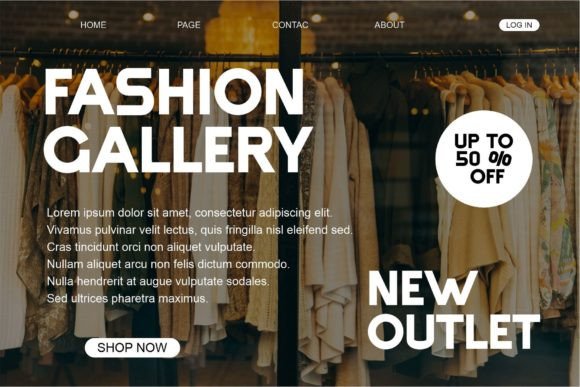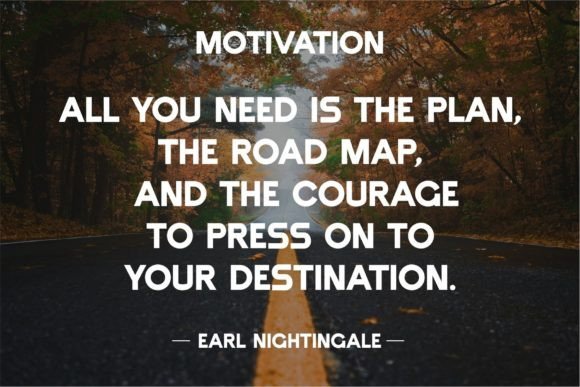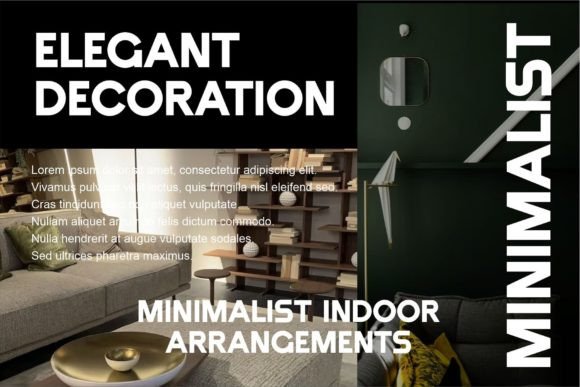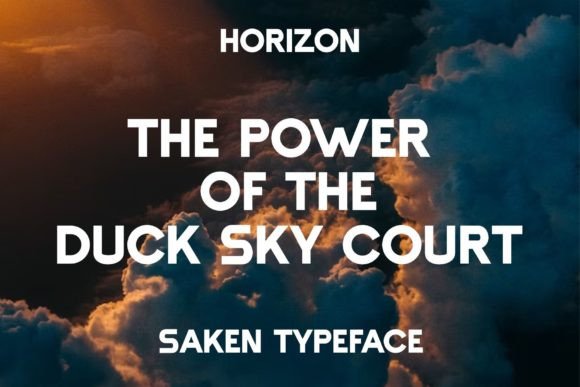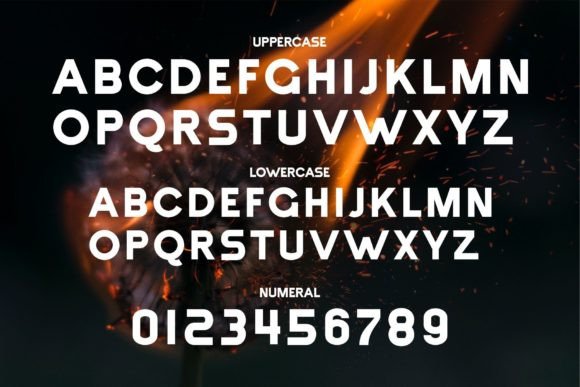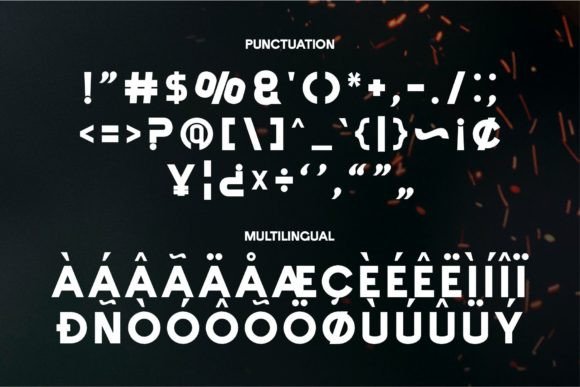
Introduction to Saken Font
You’ve just landed on the perfect shot for your creative project, and now you need to make it pop. The moment you hit the shutter, the excitement begins. But, what if the font you choose doesn’t do justice to your masterpiece? That’s where Saken Font comes in – a modern sans serif typeface designed to elevate your designs to the next level.
Whether you’re working on a high-quality brochure, crafting a beautiful invitation, or creating a stunning logo, Saken Font is the perfect design resource to bring your vision to life. With its clean lines and transparent background, this font is ideal for designers who want to create visually appealing and professional-looking designs. And the best part? It’s available for a free download, making it an accessible and valuable addition to any designer’s toolkit.
Saken Font
- High-quality typography with a transparent background, ideal for creative projects and design resources.
- Features a unique, modern design with a clean and minimalist aesthetic, perfect for a wide range of creative applications.
- Supports a wide range of languages, making it a versatile design resource for international projects.
- Includes a comprehensive character set with a variety of glyphs and ligatures, ideal for creative and design-intensive projects.
Honest Review: Saken Font
As a designer, I’m always on the lookout for high-quality design resources to elevate my creative projects. Recently, I had the chance to try out the Saken Font, and I must say it’s been a great addition to my design arsenal.
Here are some things that work well with the Saken Font:
- ✨ Unique and stylish design aesthetic that adds a touch of sophistication to any project.
- ✨ Highly versatile, suitable for a wide range of creative projects, from logos to editorial content.
- ✨ Transparent background, making it easy to use in conjunction with other design elements.
- ⚠️ Limited font sizes, which can make it a bit tricky to use in certain design scenarios.
- ⚠️ Not as extensive a character set as some other fonts, which can be a drawback for designers who need to work with specific languages.
Overall, I’m quite impressed with the Saken Font. Its unique design aesthetic and high-quality feel make it a great addition to any designer’s toolkit. While it may have a few limitations, I think it’s definitely worth checking out – especially considering the free download option!
Tips for Getting the Most Out of Saken Font
Experiment with different font sizes, colors, and styles to achieve the desired effect. Use Saken Font in combination with other design elements to create visually appealing and high-quality designs. The transparent background of the font adds an extra layer of creativity to your design project.
Saken Font is suitable for a wide range of creative projects, including brochures, flyers, business cards, and social media graphics. Its high-quality design and transparent background make it an ideal choice for designers looking for a free download resource that can elevate their work.
Q: Does the Saken Font have a transparent background?
Yes, the Saken Font features a transparent background, making it perfect for designs that require a subtle, non-intrusive look. You can use it on any background color or image without worrying about the font’s background interfering with your design.